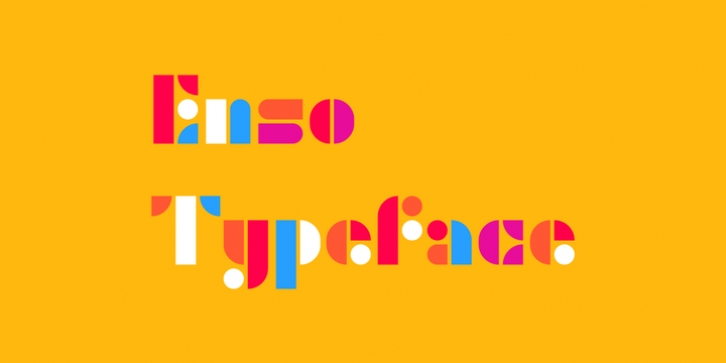
Tamer Köşeli
Tamer Koseli
Enso
is a display typeface, based on geometric forms. Best suited for big headlines, posters, logos, motion-graphics, packing and illustrations.